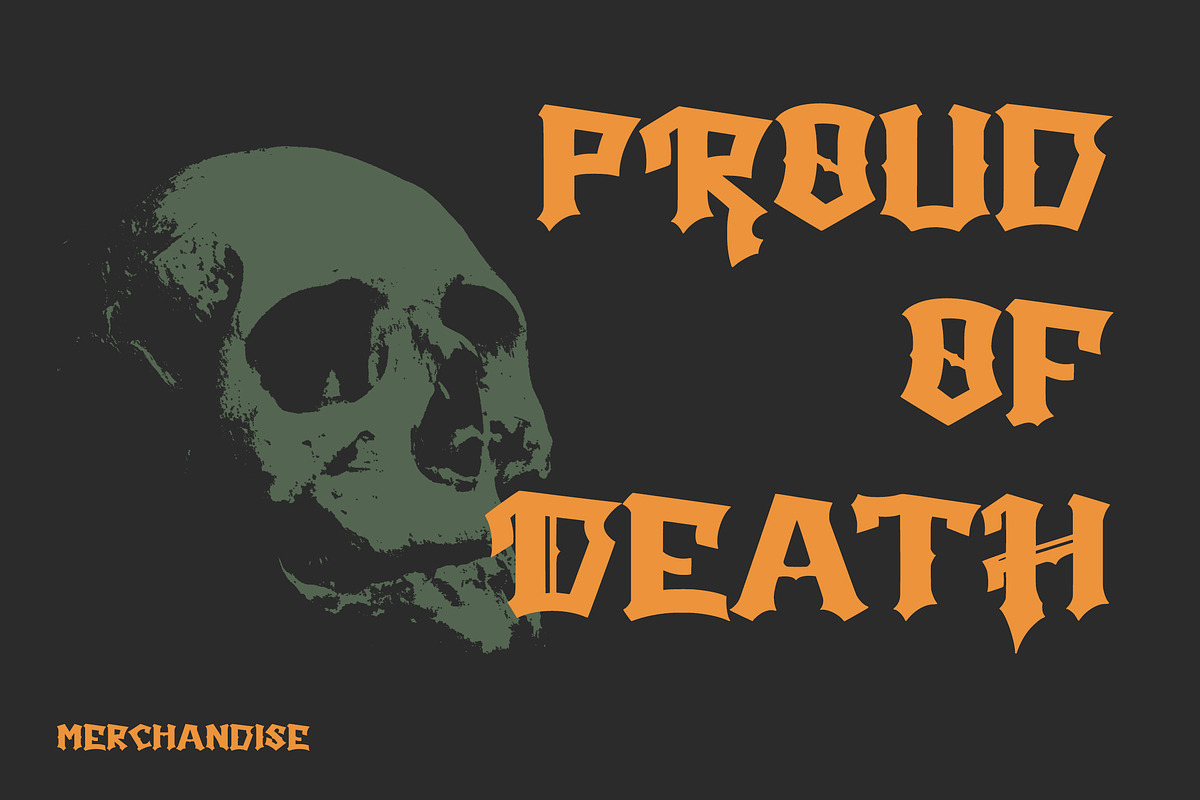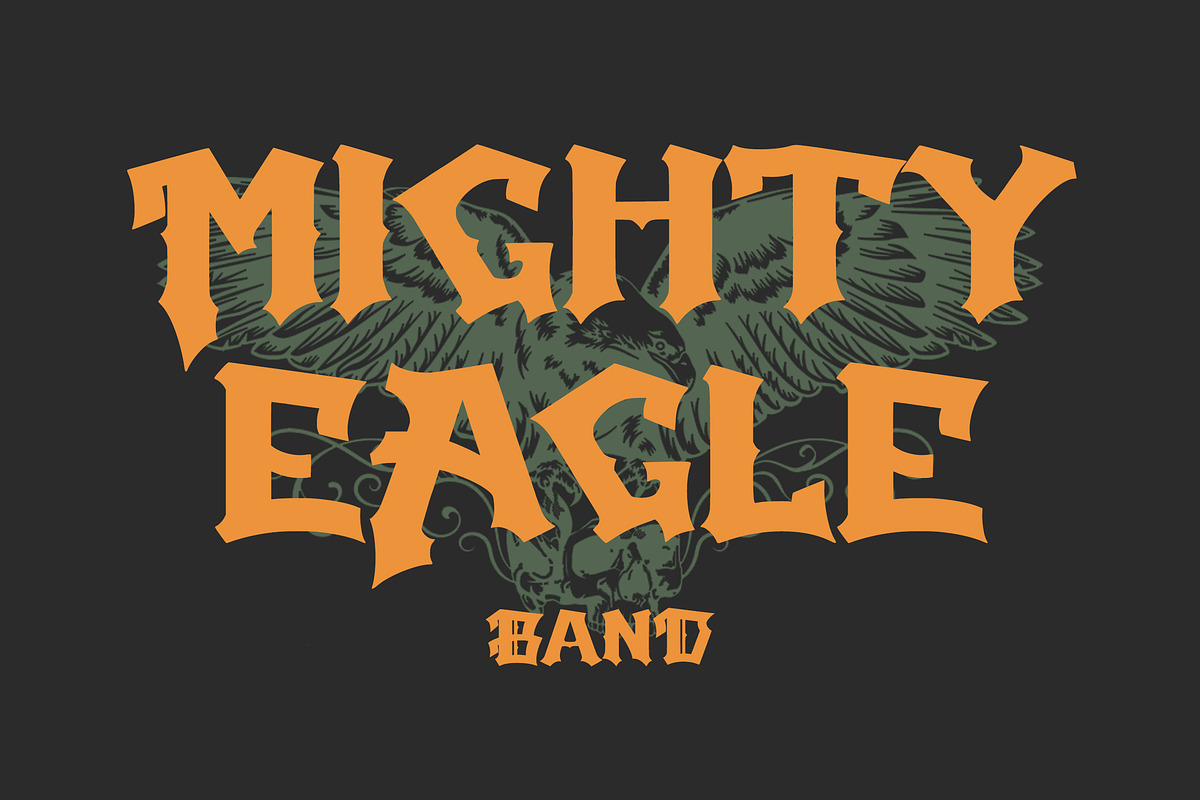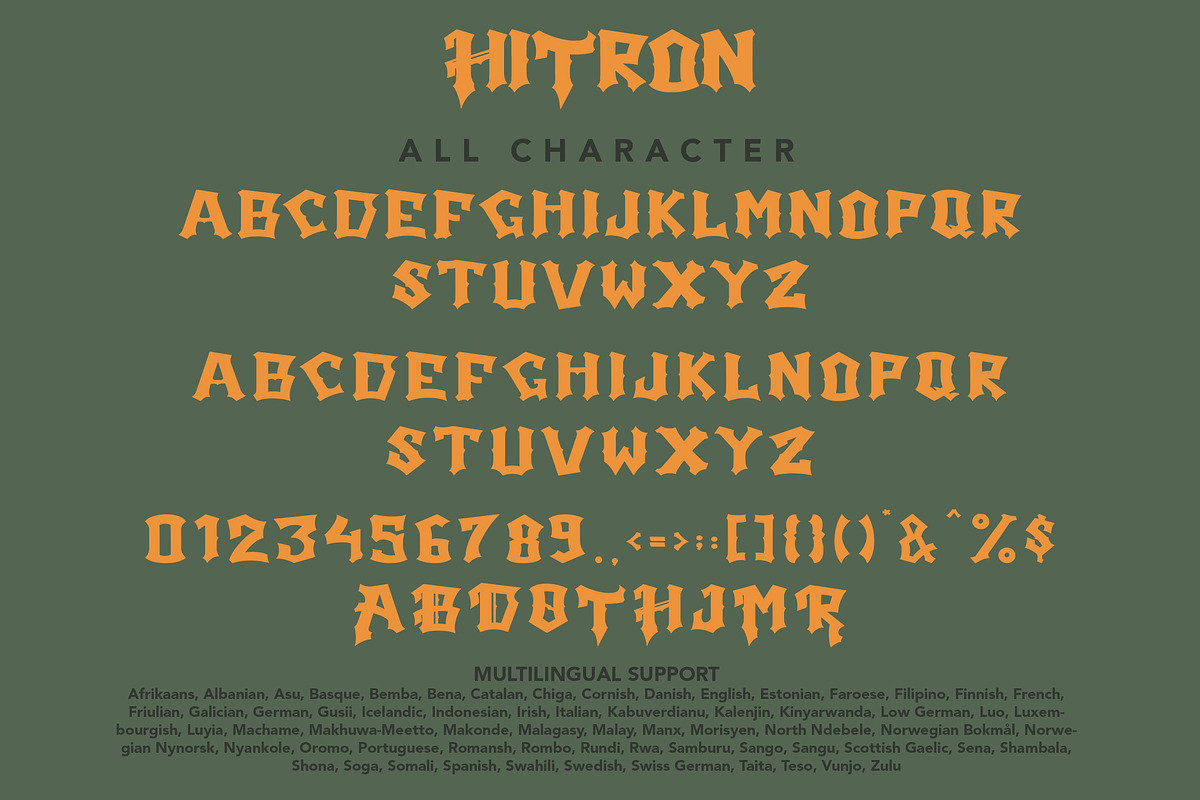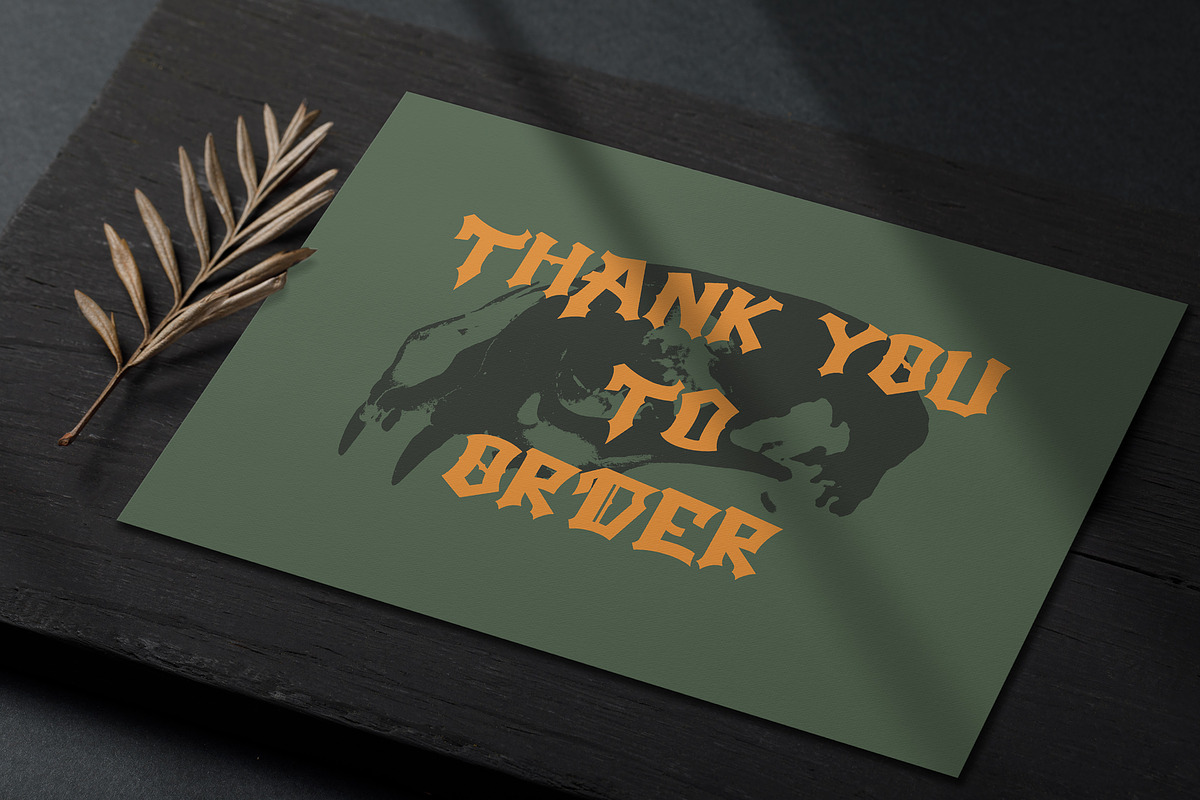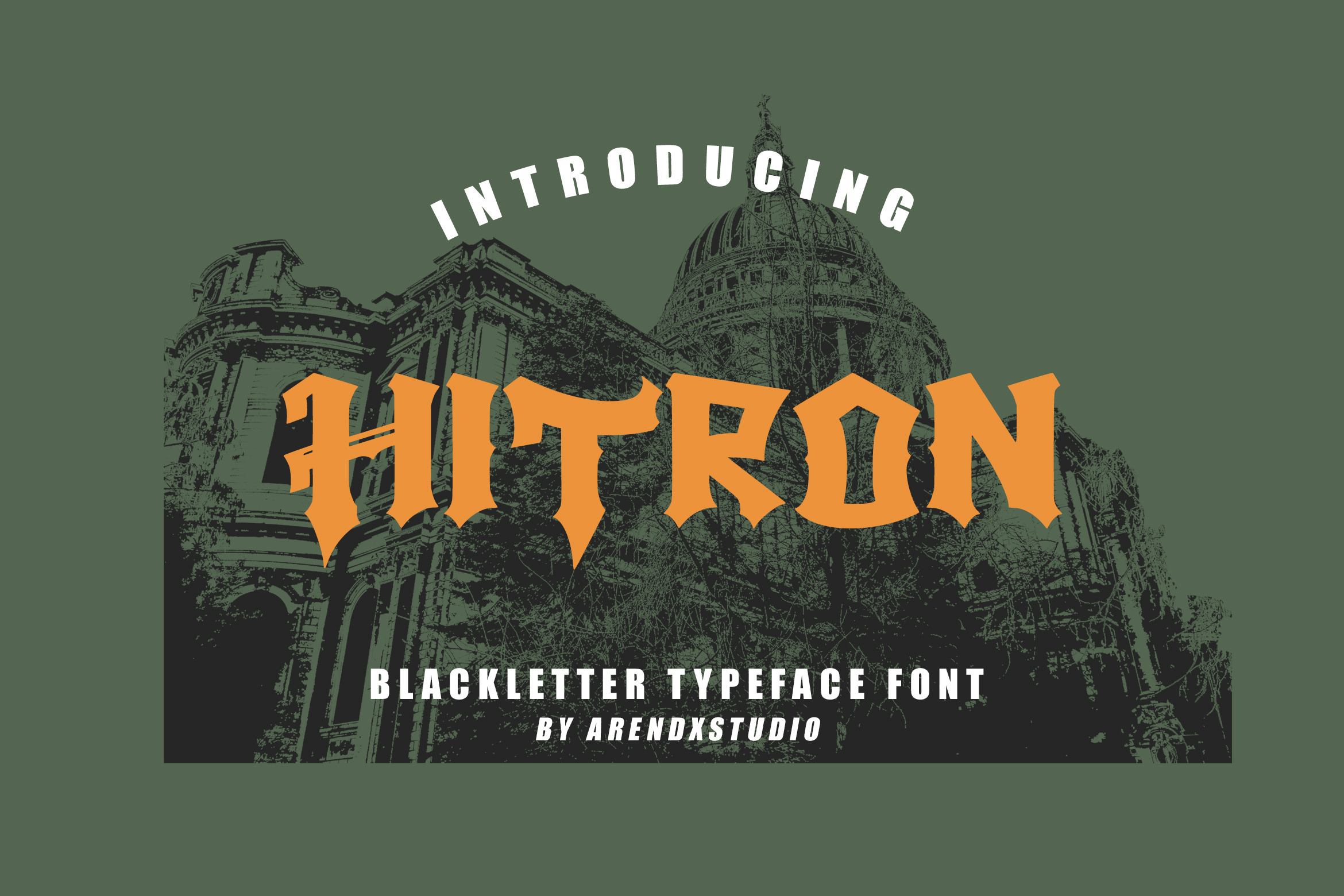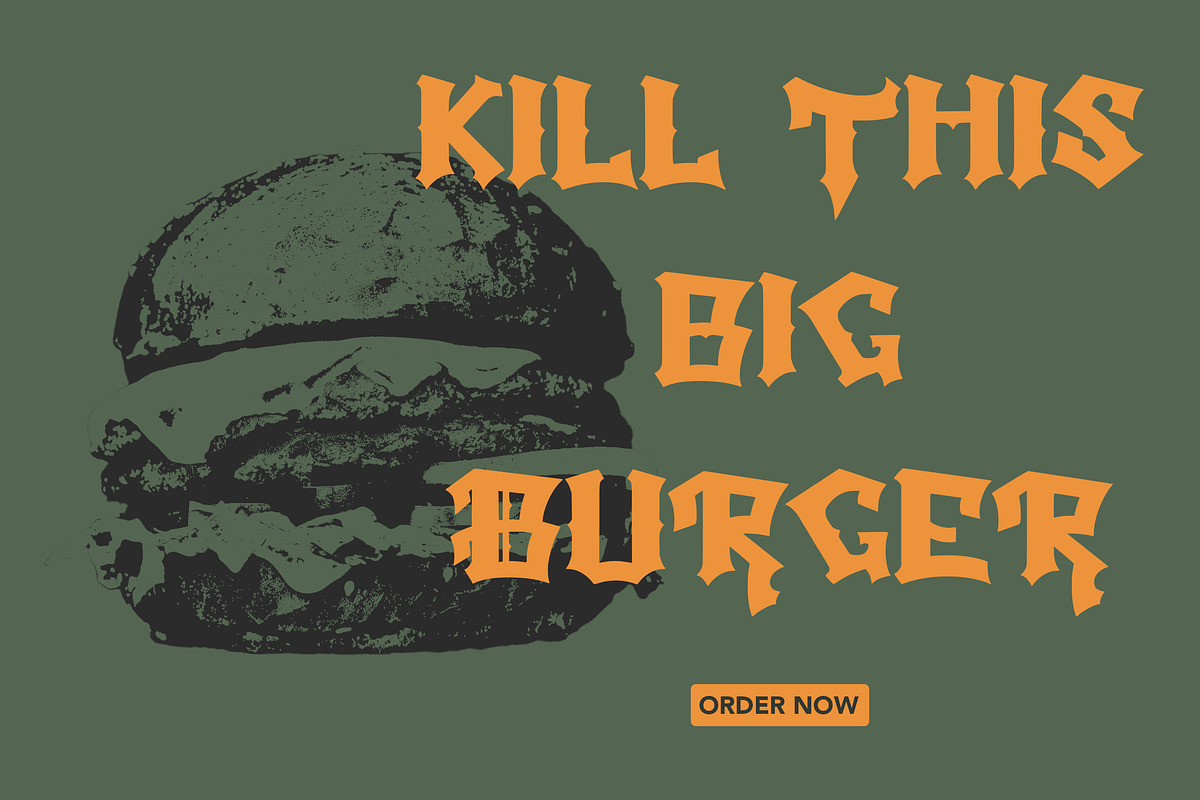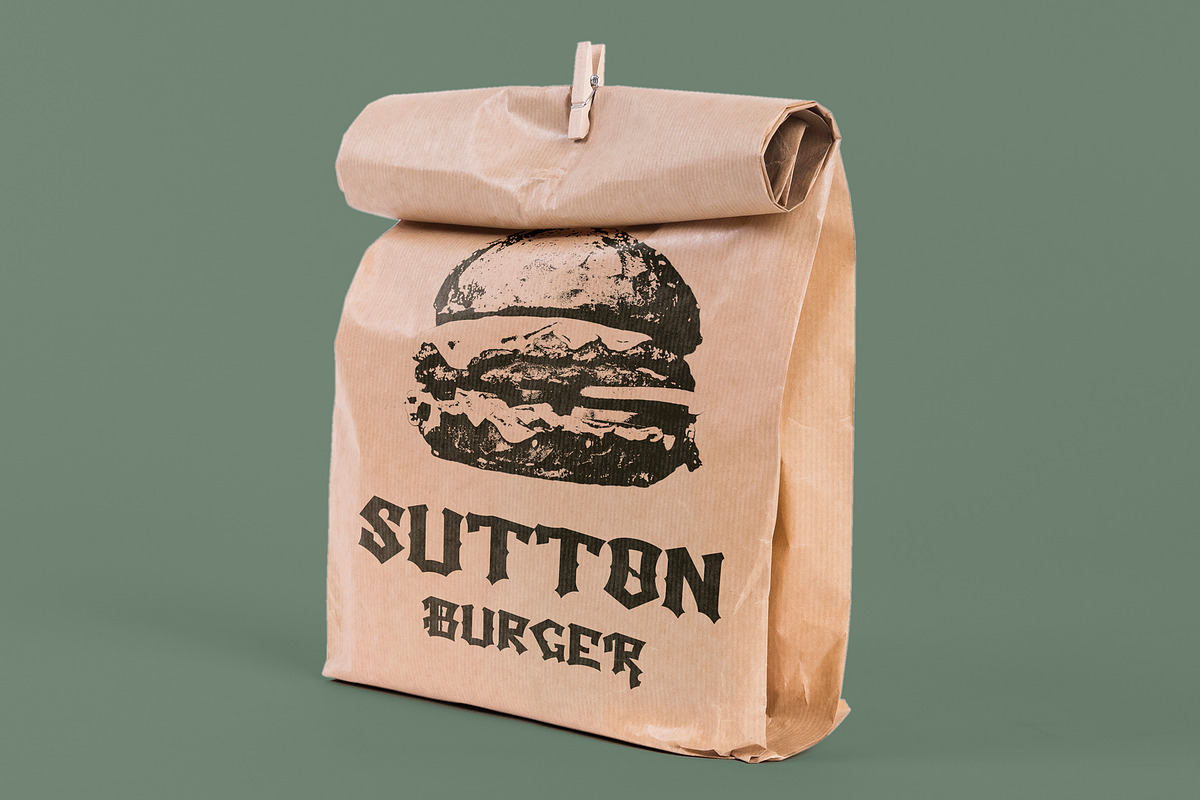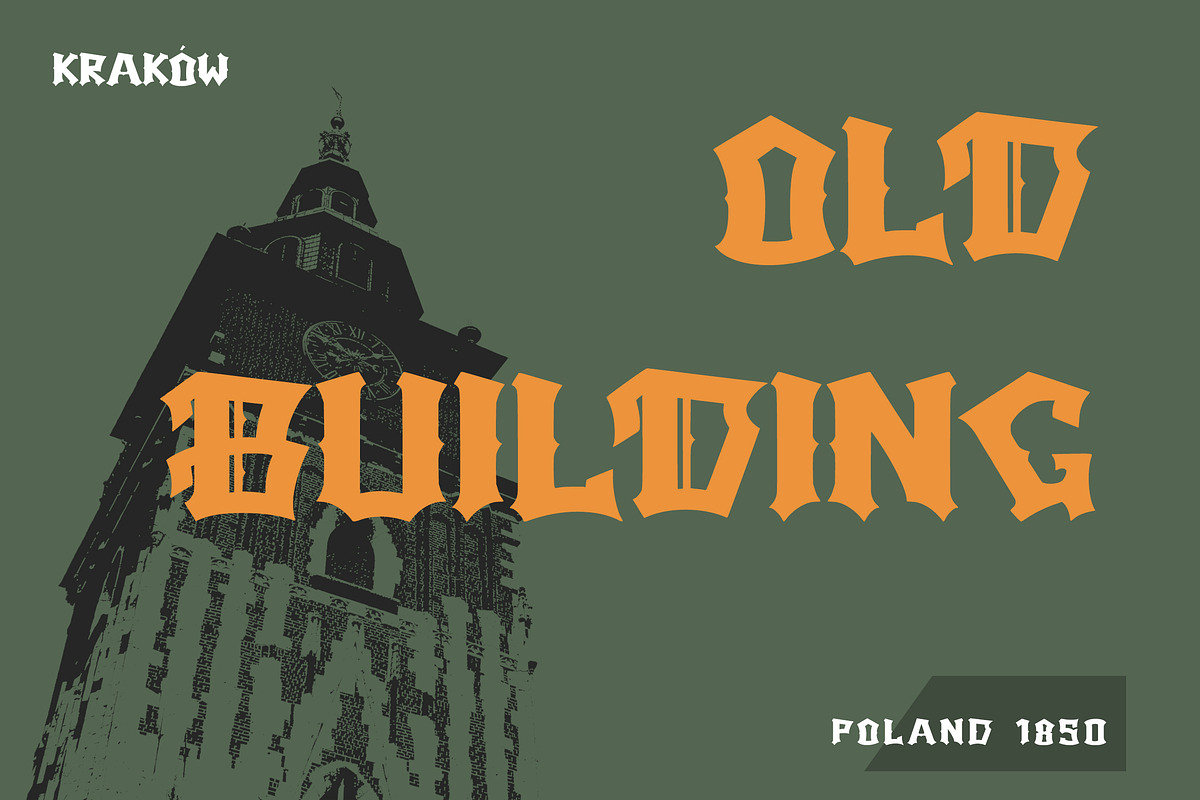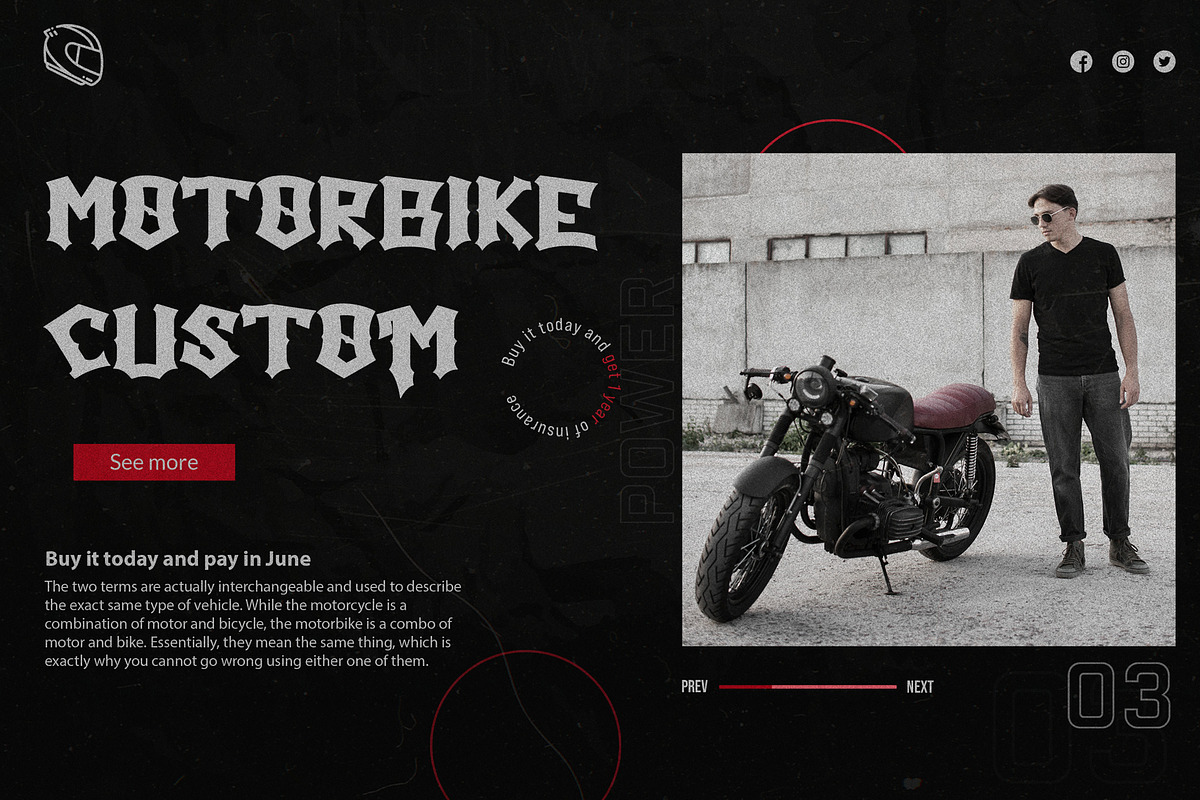
Hitron - Blackletter Typeface Font
Hitron - Blackletter Typeface Font is a display font that is inspired by ghotic style because its shape is very unique and is perfect for any project that you will use with this theme.
Hitron came with opentype features such stylistic alternates, stylistic sets & ligatures good for logotype, poster, badge, book cover, tshirt design, packaging and any more.